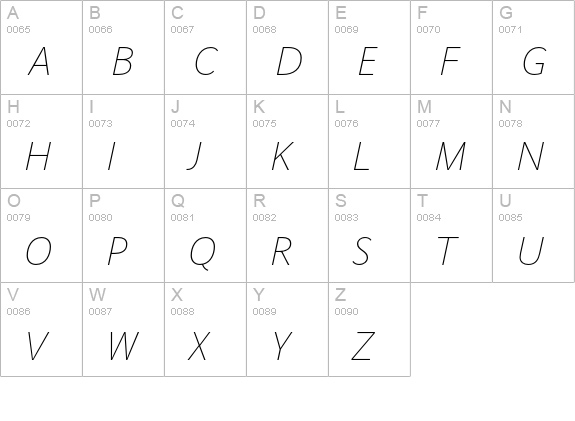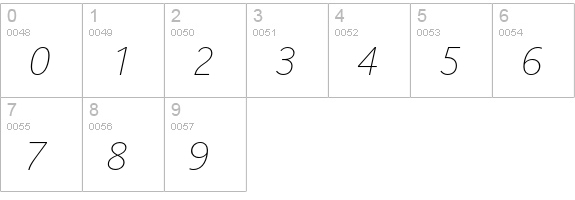
ParisineClair Italic Font Details
ParisineClair Italic is a distinctive, italic variant in the ParisineClair typeface family \xE2\x80\x94 well suited to design and typography projects.
ParisineClair Italic, a beautifully crafted font that exudes elegance and sophistication, is now available in its italic variant. This exquisite typeface, with its delicate curves and graceful slant, adds a touch of refinement to any design project. Perfectly suited for formal invitations, luxury branding, and editorial layouts, ParisineClair Italic offers a harmonious balance between legibility and artistic expression. Its subtle italic angles lend a sense of movement and flair, making it an ideal choice for conveying a sense of dynamism and modernity. With its timeless appeal, ParisineClair Italic effortlessly captures attention and adds a touch of class to any design. Whether it's used for headlines, subheadings, or body text, this font elevates any piece of content to new heights of sophistication. And the best part? ParisineClair Italic is available for free download at FontsMarket.com. Now, designers and creatives alike can effortlessly access this stunning typeface and enhance their projects with its refined aesthetic. The freedom to use ParisineClair Italic in personal and commercial endeavors opens up endless possibilities for designers, allowing them to create truly remarkable and impactful designs. So, if you're seeking an elegant and versatile font that is both visually captivating and freely available, look no further than ParisineClair Italic. Download it today from FontsMarket.com and unlock a world of design possibilities.